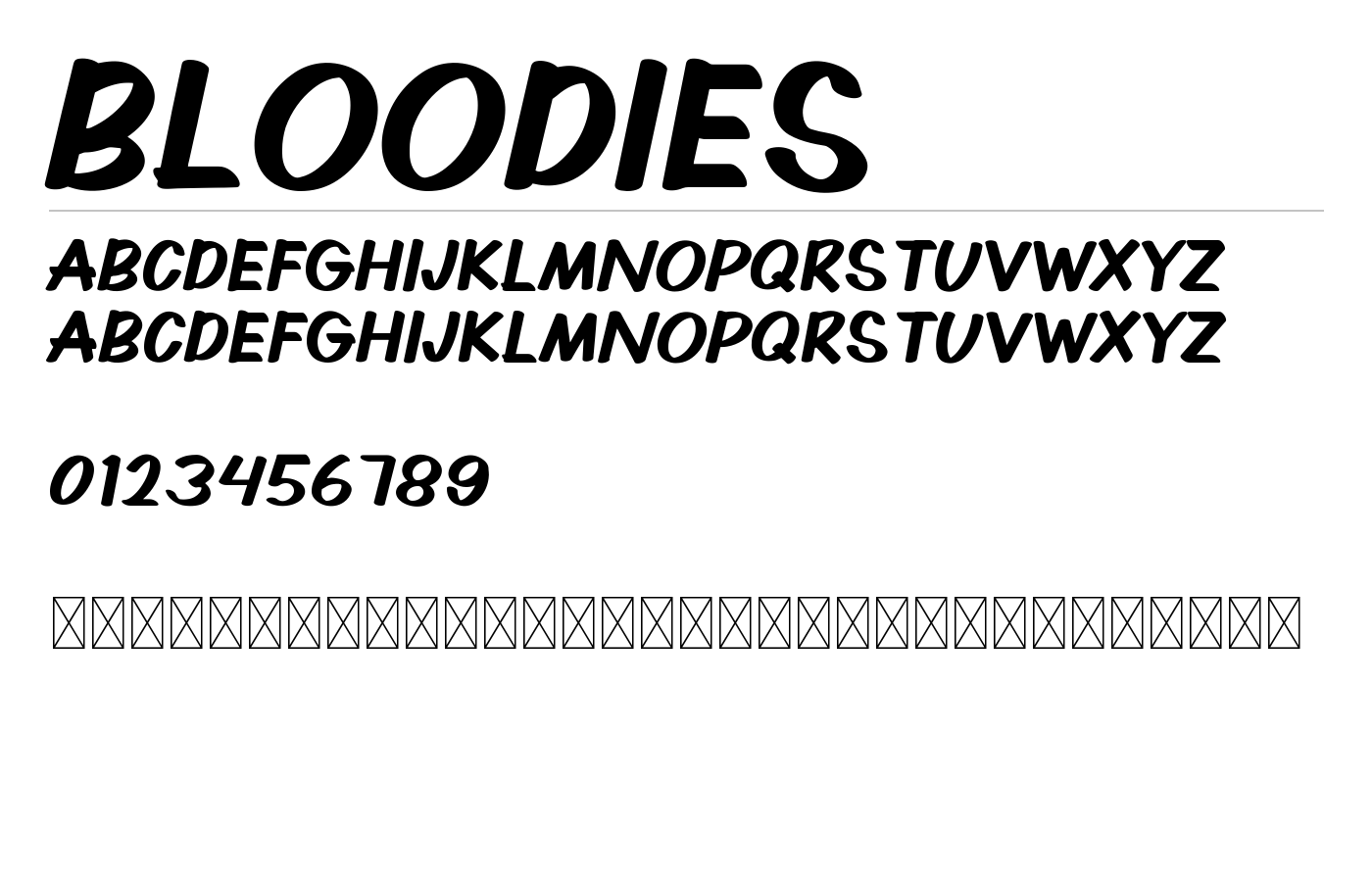
Bloodies is a bold, playful sans serif font with a slightly condensed width and a lively, hand-drawn feel. Its italicized letterforms feature uneven strokes and quirky curves, giving it a dynamic and informal personality perfect for casual, fun, or creative branding and display use. This font works well for eye-catching headlines and logos that want to express energy and approachability.
BLOODIES Font
About BLOODIES Font